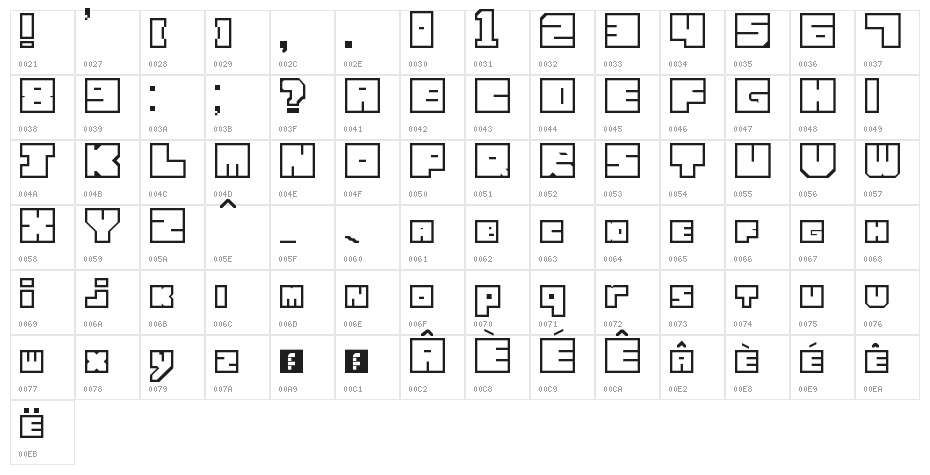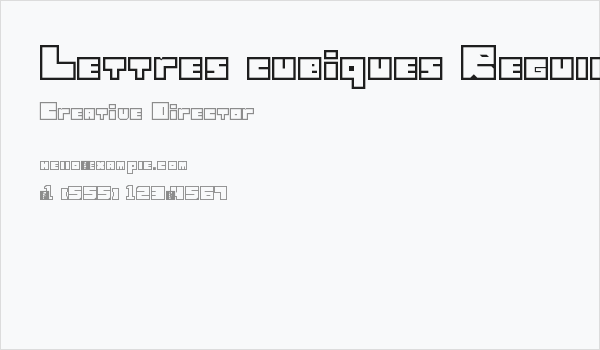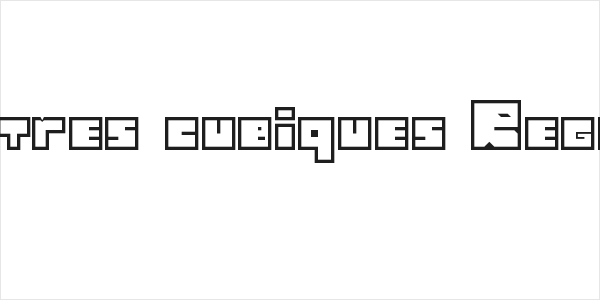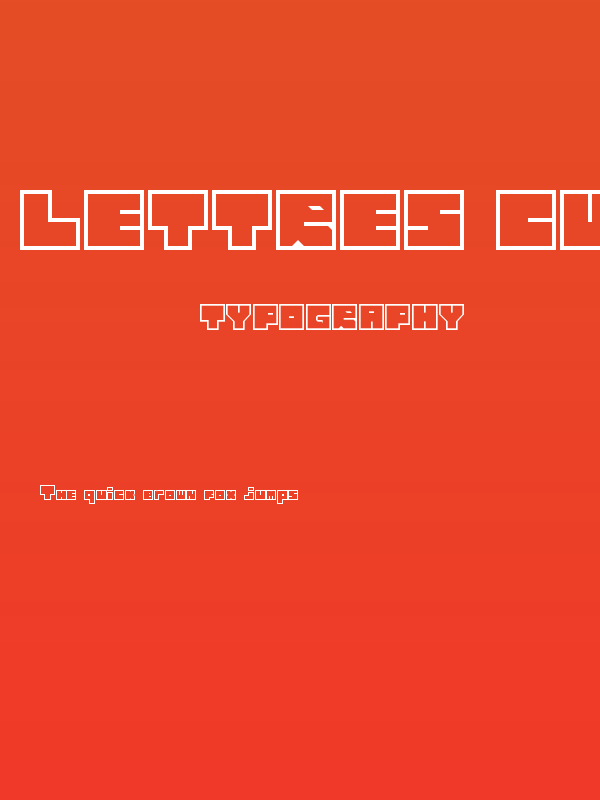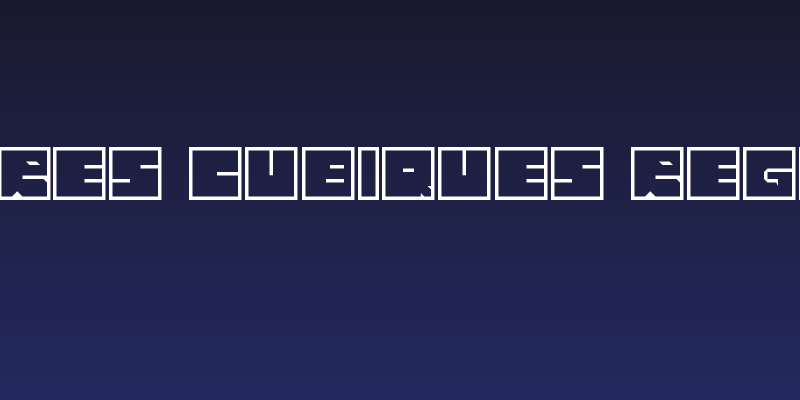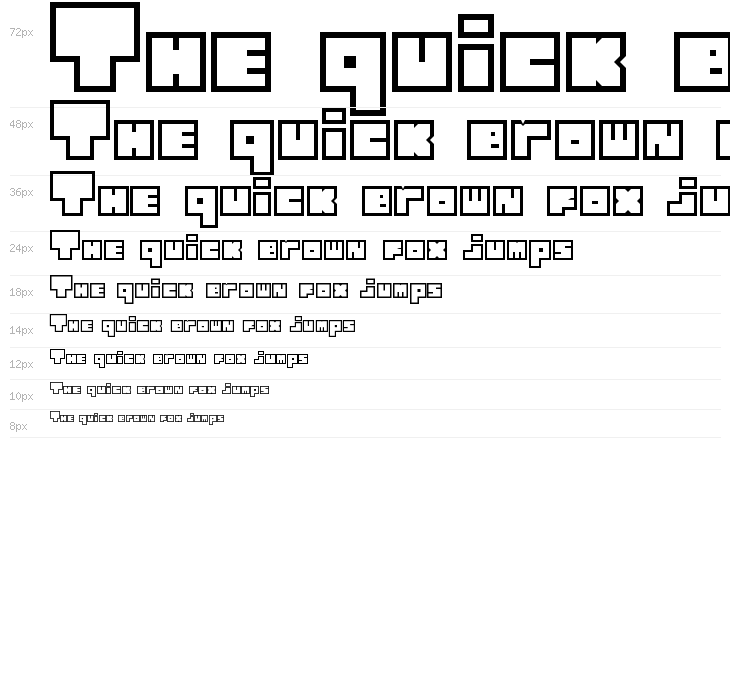
Lettres cubiques Regular Font
Lettres cubiques Regular Description
This font features a bold, geometric design with a cubic, three-dimensional appearance. Each character is constructed with thick, uniform strokes that create a strong visual impact. The letters are outlined, giving them a distinct, blocky look that is both modern and playful. The uppercase and lowercase letters maintain a consistent style, with sharp angles and straight lines. Numbers and special characters follow the same design principles, ensuring a cohesive look across all glyphs. The font's unique style makes it stand out, making it ideal for creative and eye-catching designs.
| Proposed Projects | Ideal for posters, video game graphics, logos, and any design requiring a modern, playful touch. |